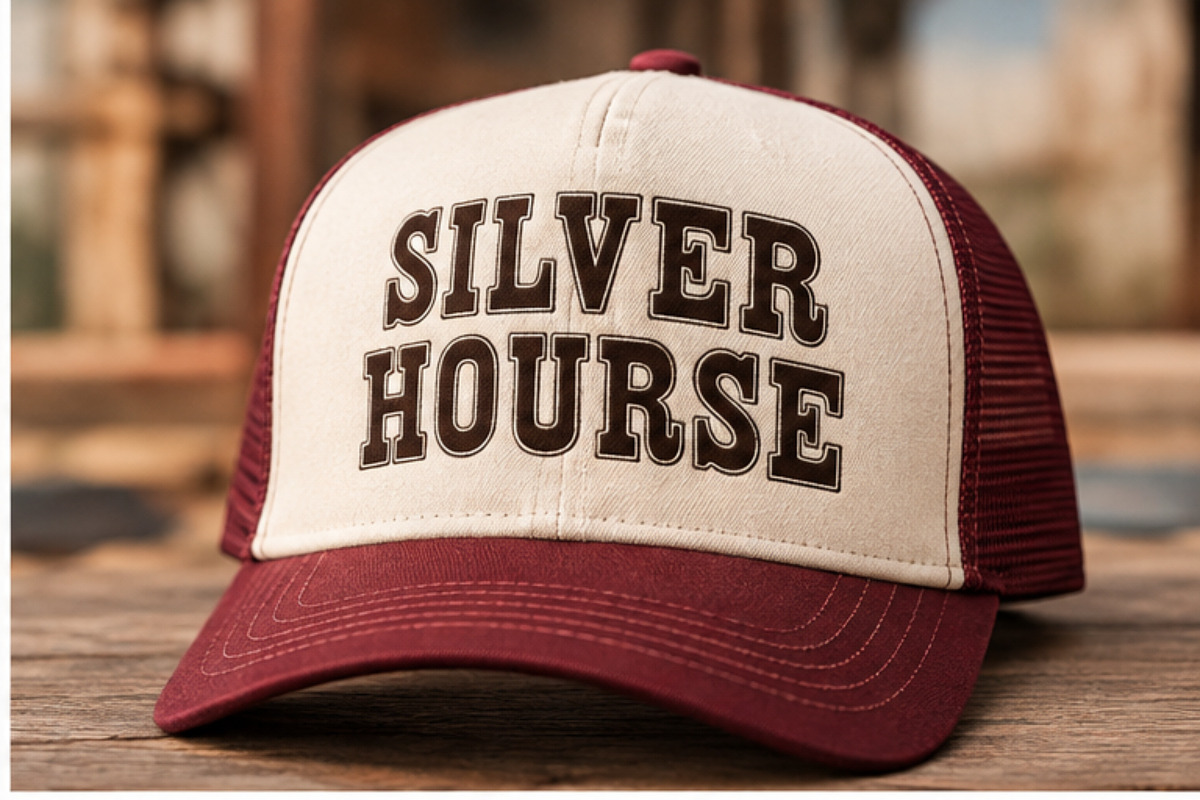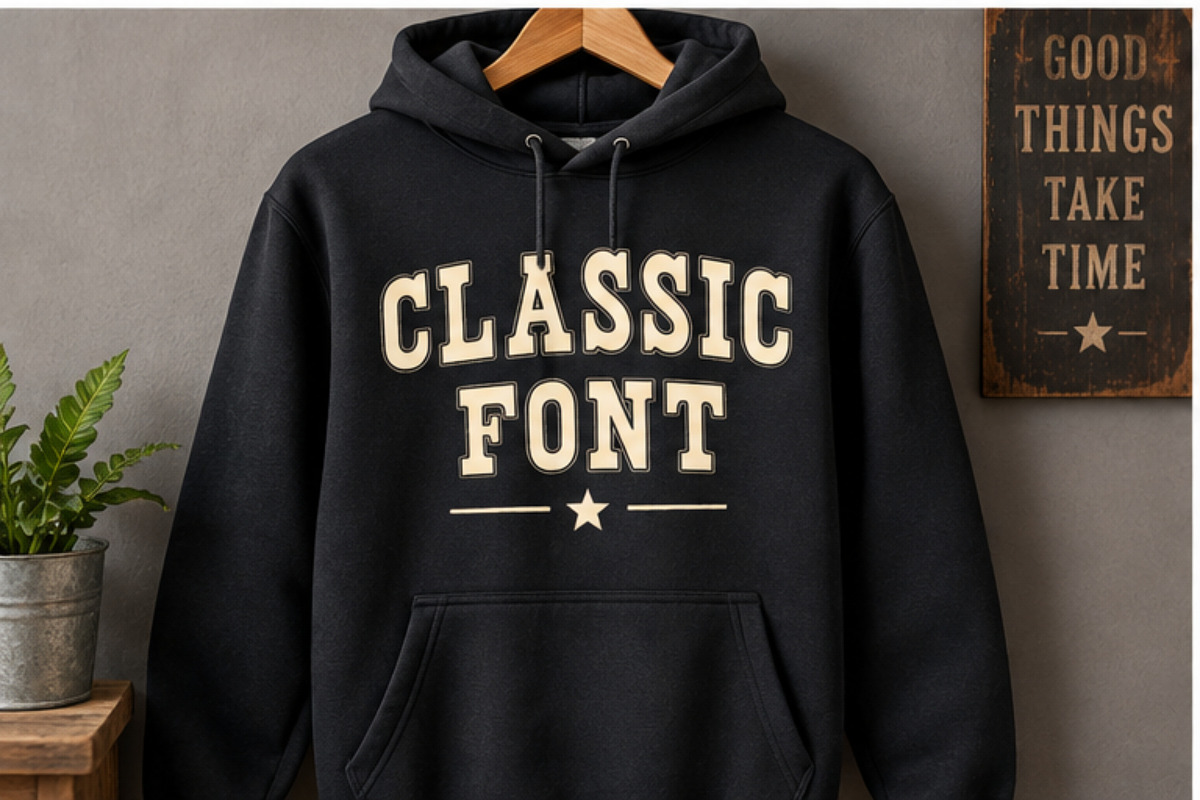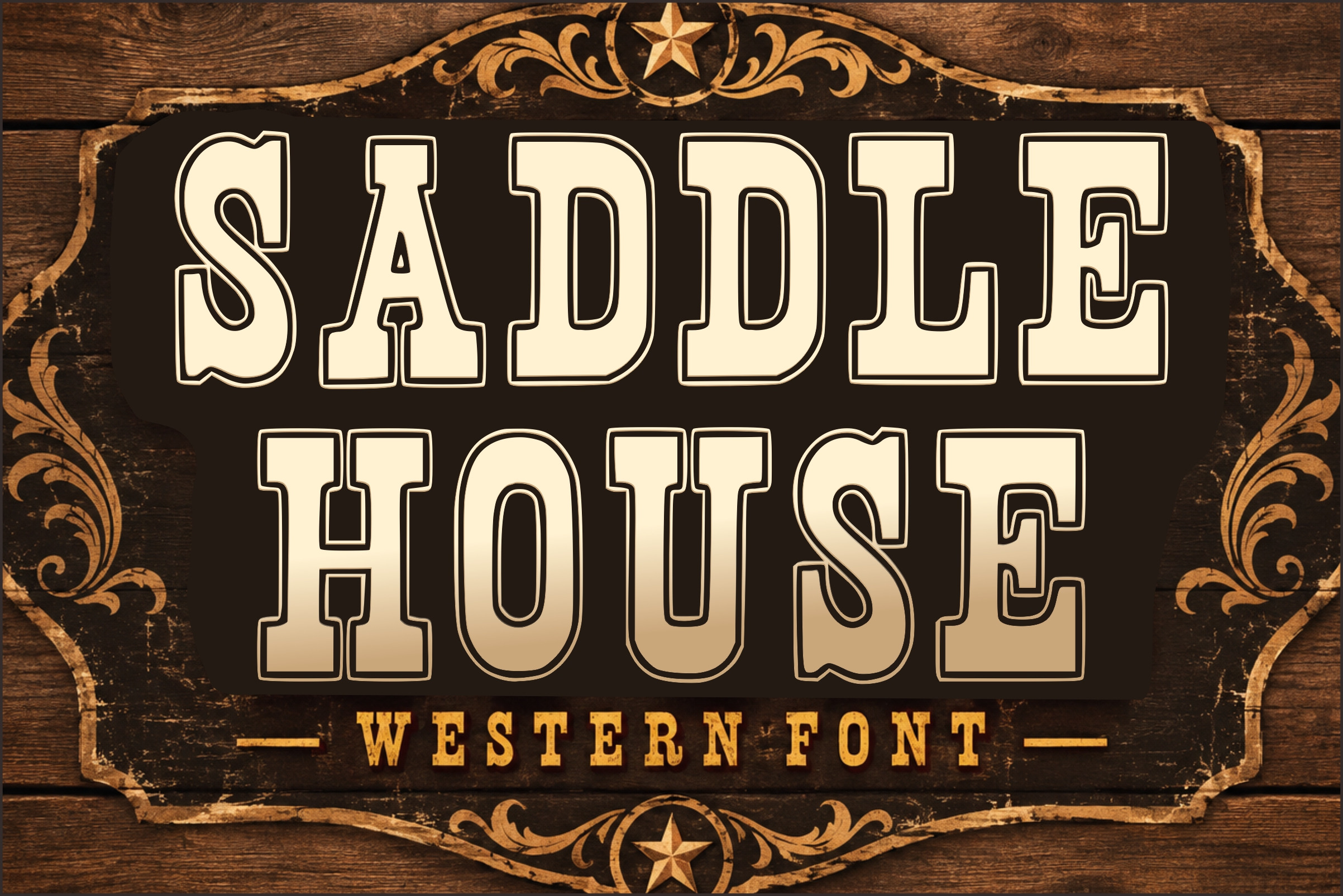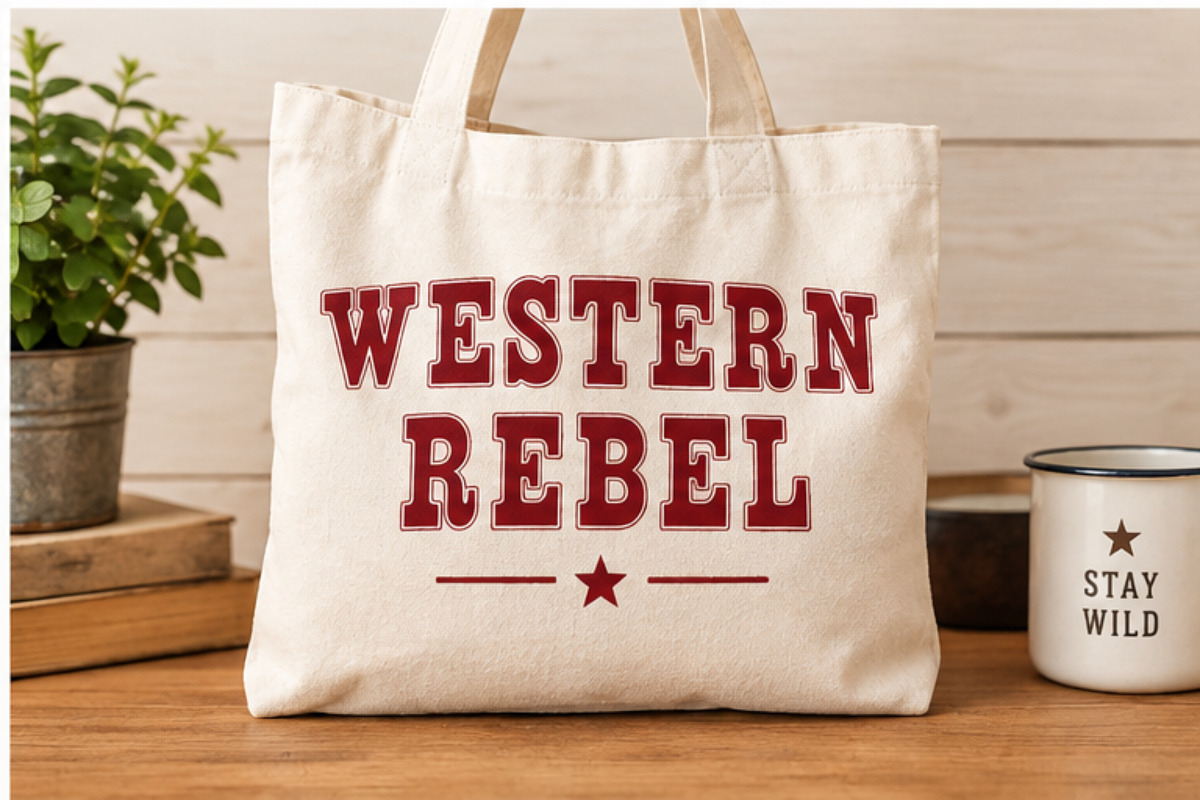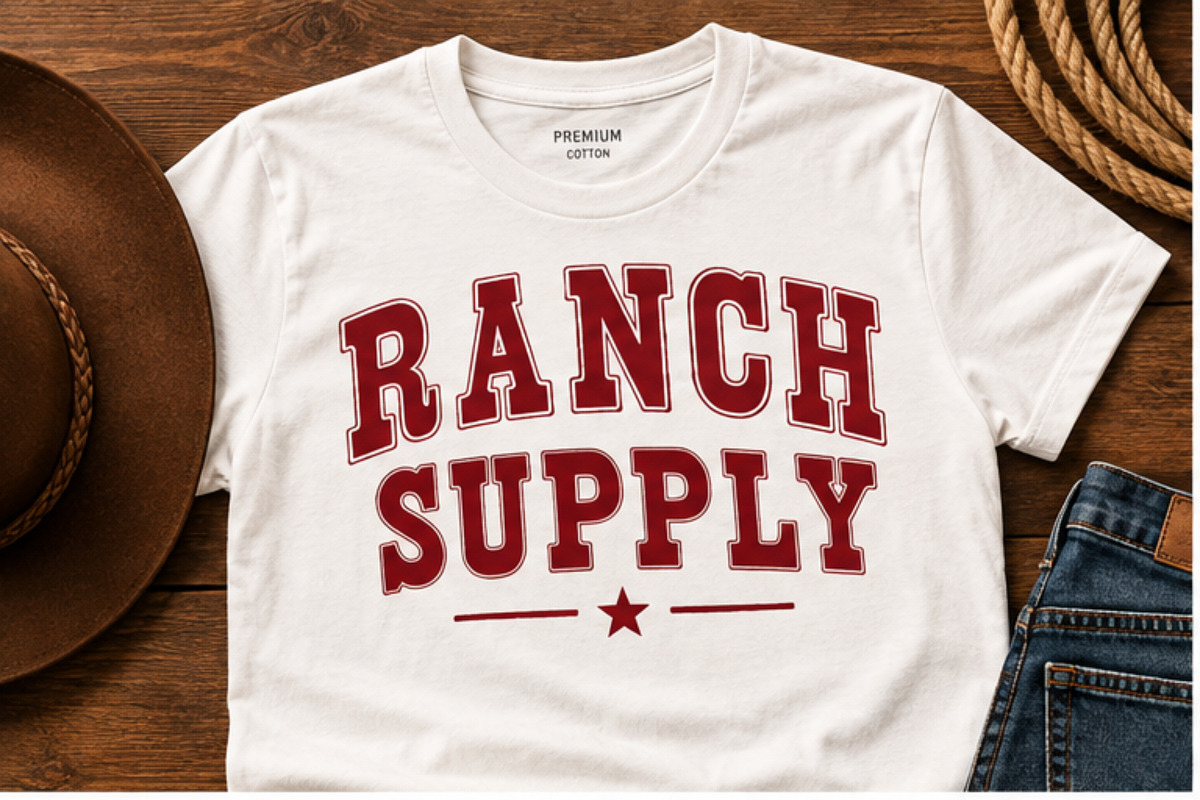
Saddle House - Western Vintage Font
Saddle House is a bold vintage Western display font inspired by classic cowboy signs, ranch branding, rodeo graphics, and old saloon typography. Its strong slab-serif letterforms, decorative details, and rugged character make it perfect for creating authentic Western designs with a classic Americana feel.
Perfect for logos, T-shirts, apparel, posters, signs, labels, packaging, badges, stickers, invitations, merchandise, and other creative projects.